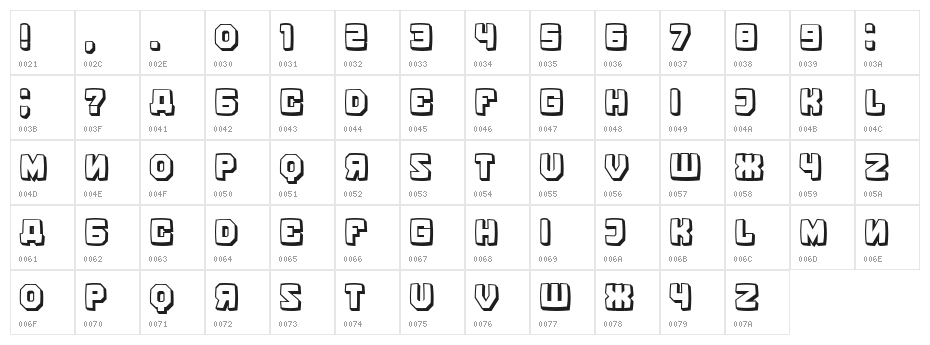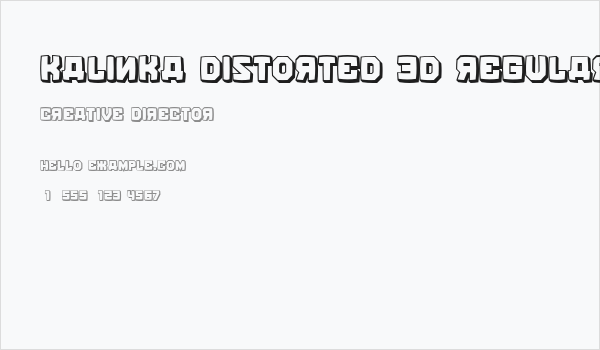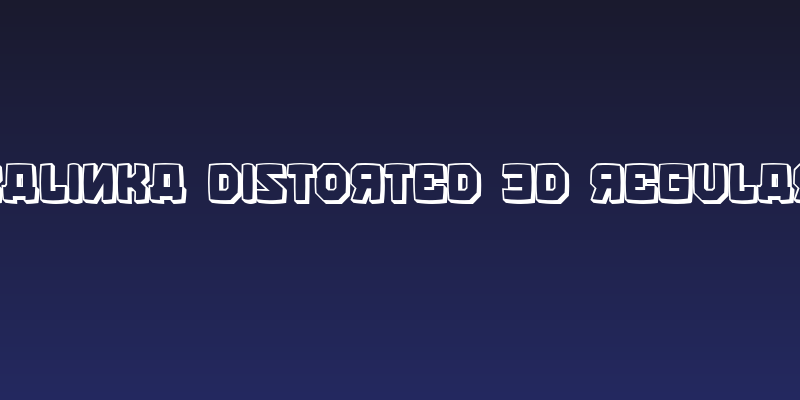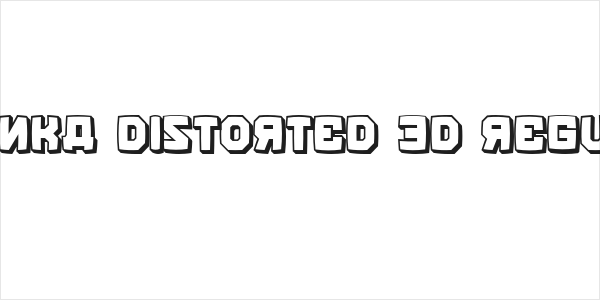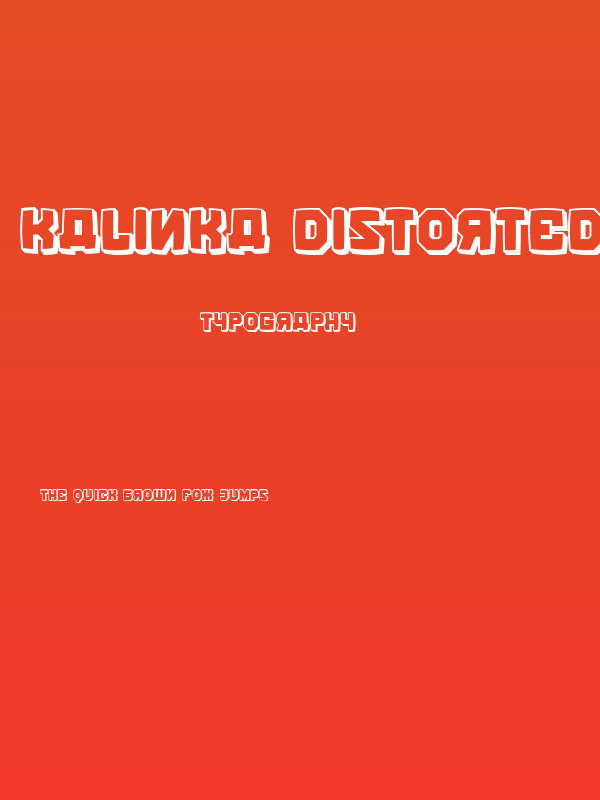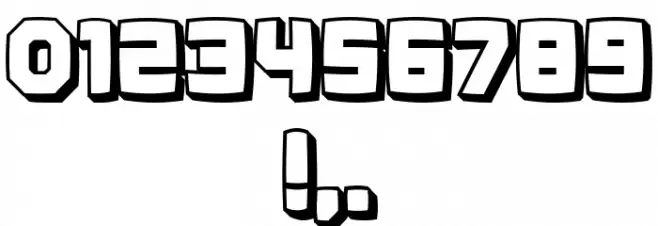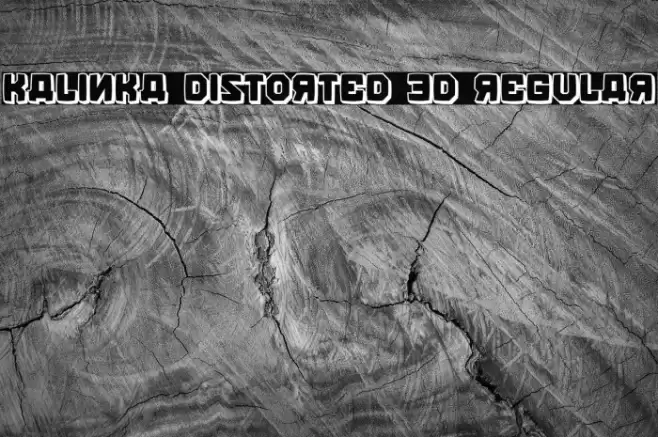
Kalinka Distorted 3D Regular Font
Kalinka Distorted 3D Regular Description
This font features a bold, three-dimensional style with a playful and distorted appearance. The characters have a thick outline and a shadow effect that gives them a blocky, cartoonish look. The uppercase letters are consistent in height and width, creating a uniform appearance, while the numbers and special characters maintain the same playful style. The font's design is eye-catching and dynamic, making it suitable for projects that require a fun and engaging visual impact.
| Overall Style | Playful, Cartoonish, Modern |
| Proposed Projects | Ideal for children's book covers, comic titles, playful branding, and video game graphics. |